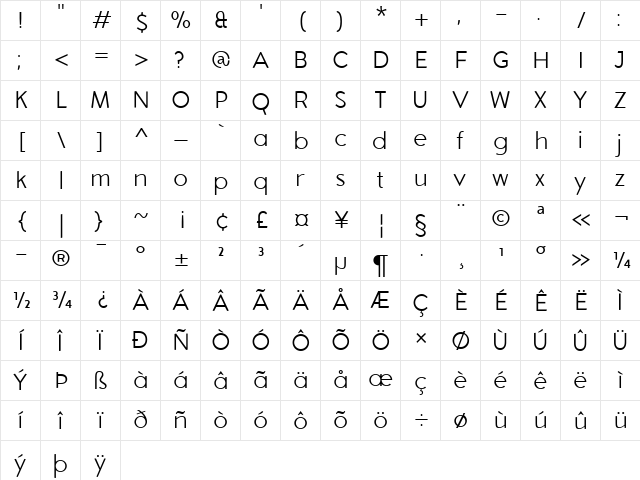
Aron Grotesque Light
Foundry: Monocromo s.n.c.
Designer: Valentino Coppi for Monocromo
Design Context for Aron Grotesque
Aron Grotesque is a composed and adaptable typeface that performs quietly and consistently across a wide range of design contexts. Its slender proportions lend an understated elegance to any composition.